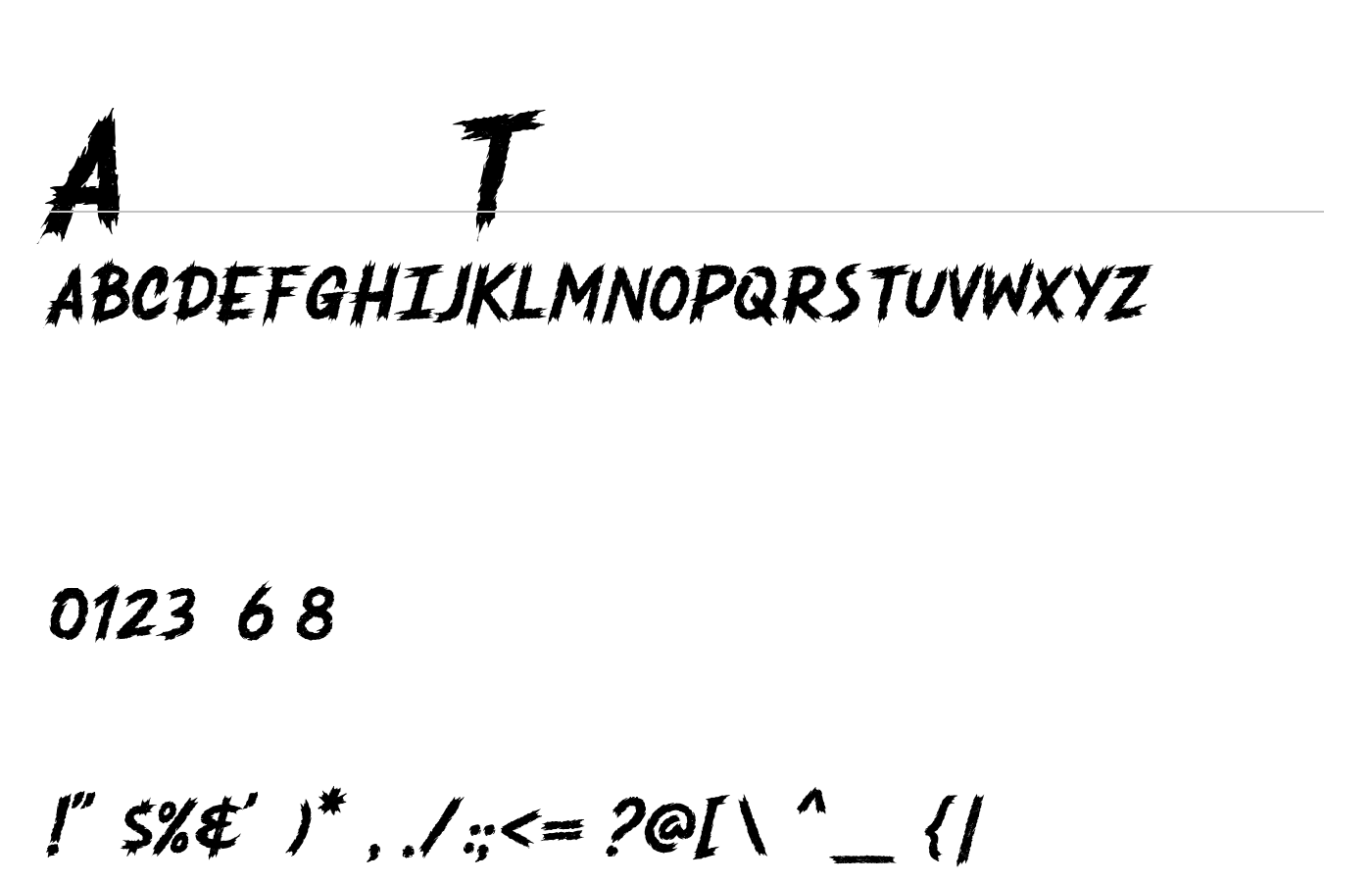
Anarchy Tantrum is a bold, rough-edged display font that mimics a wild, jagged brushstroke style with a furious energy. Its uppercase-only design and textured, irregular strokes give it a rebellious, aggressive personality perfect for edgy branding, posters, or headlines that demand attention with a raw, untamed vibe. This font works best where a dramatic, punk-inspired look is needed to convey intensity and defiance.
Anarchy Tantrum Font
About Anarchy Tantrum Font
| Font family | Anarchy Tantrum Font |
| Designer | Hurufraktur |